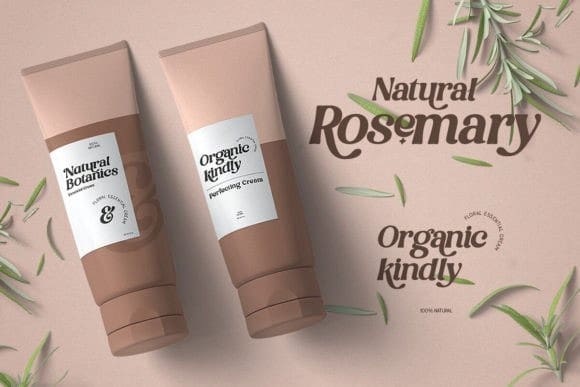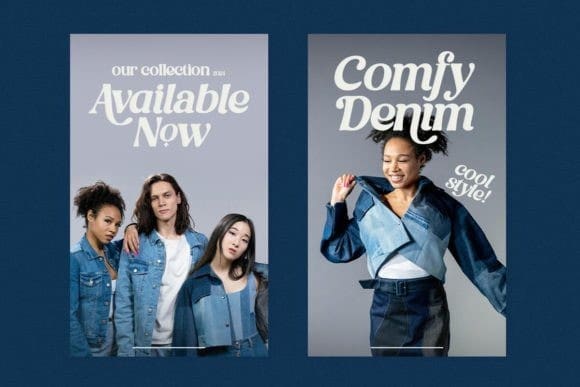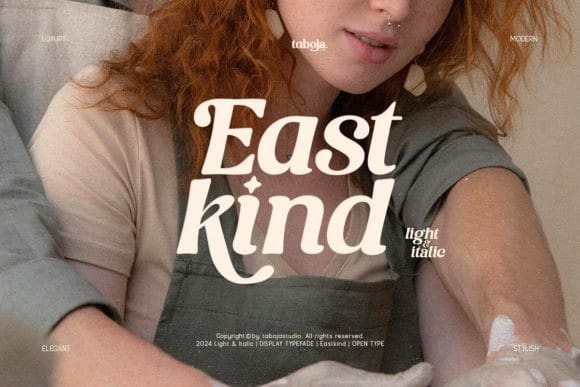
East Kind Font
East Kind Font is a sophisticated serif font exuding timeless elegance. Its sleek lines and balanced proportions lend a touch of refinement to any project. Perfect for luxury branding, editorial designs, and elegant invitations, EastKind captures attention with its understated charm and classic appeal.